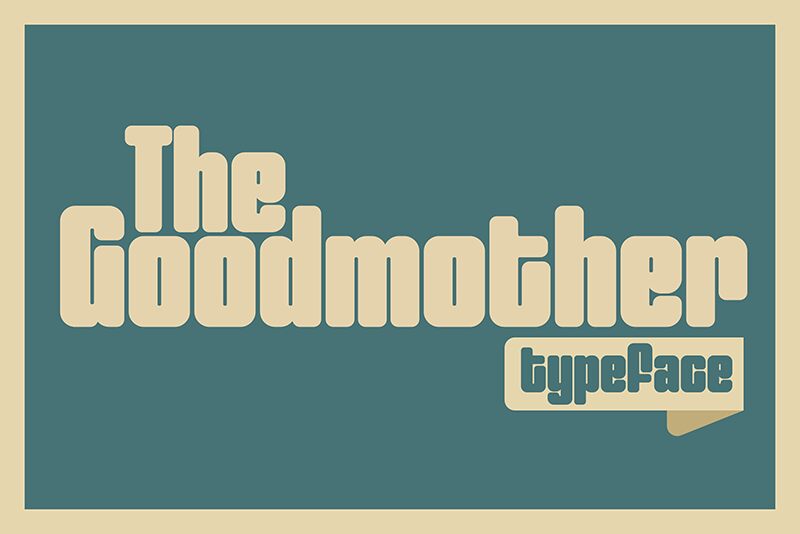
The Goodmother DEMO
The Goodmother font by Toko Laris Djaja is a rounded bold retro display with slab serifs, inspired by typefaces of the '60s. A geometric uniform design gives a condensed width and groovy look for each character in the set. The font style allows getting modern results even with casual use at larger sizes.
Make the best out of The Goodmother in creating logos, posters, flyers, signs and menus, invitation cards, headlines and magazine covers. Use it as well to enrich websites or social media posts. Books for adults and children alike will also end inviting combining this free font with their cover designs.